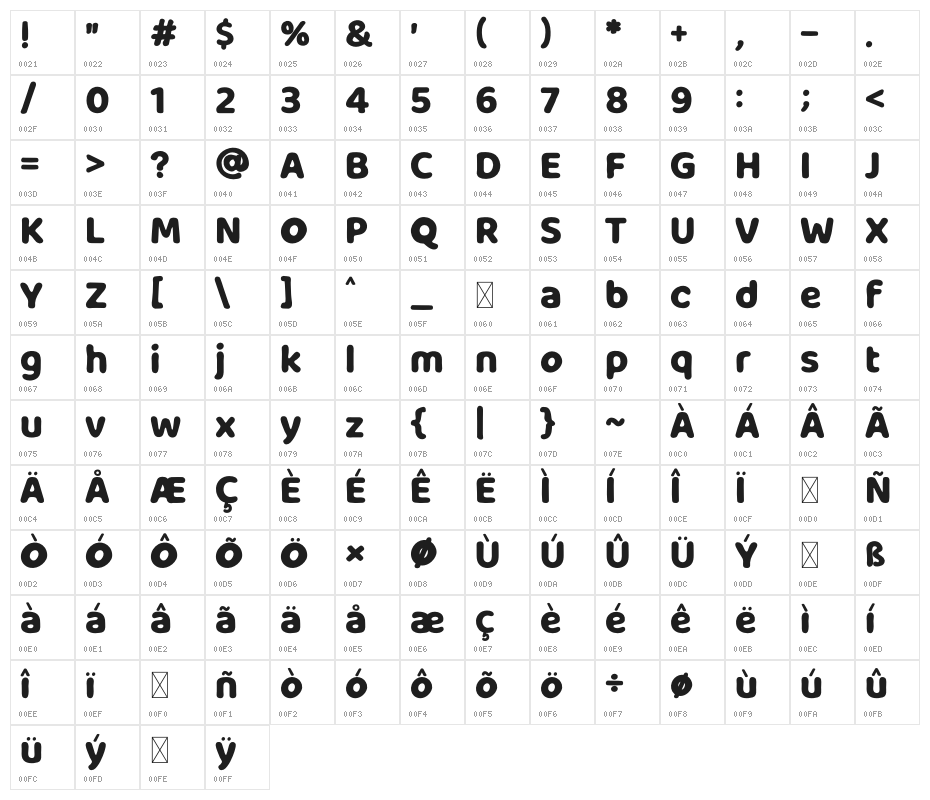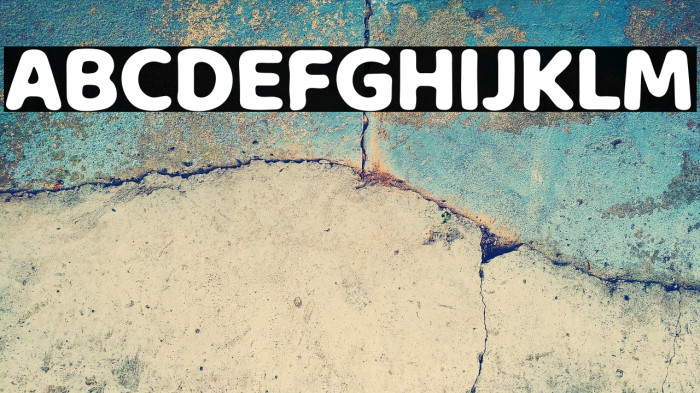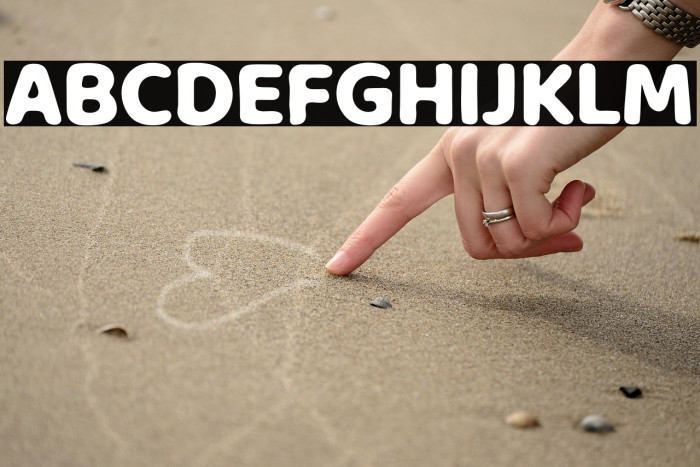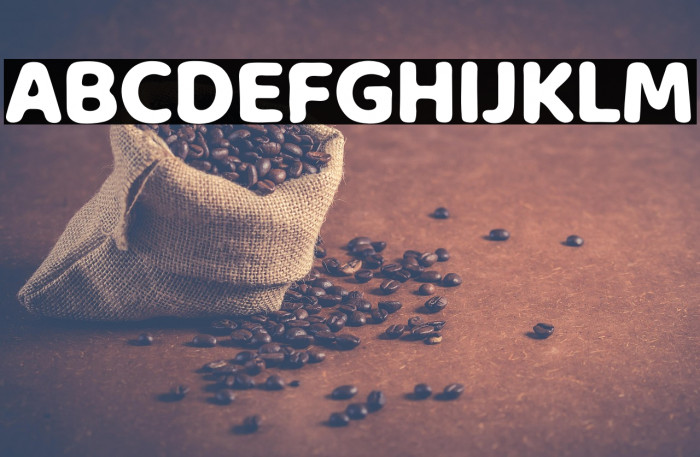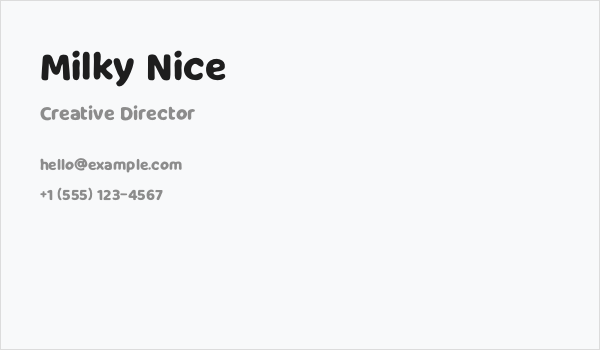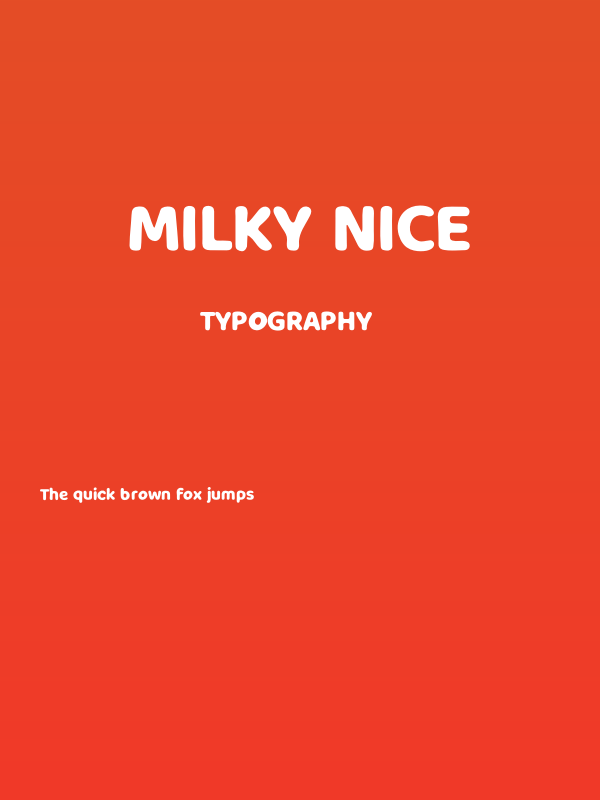
Milky Nice Font
Milky Nice Description
This playful and rounded font exudes a friendly and approachable vibe. The characters are bold and have a soft, bubble-like appearance, making them stand out with a unique charm. The font maintains a consistent weight throughout, with smooth curves and a slightly condensed form. It is highly legible and versatile, suitable for various creative applications. The numbers and special characters are designed to match the playful style of the letters, ensuring a cohesive look across all text elements.
| Proposed Projects | Ideal for children's books, playful branding, product packaging, and social media graphics. |